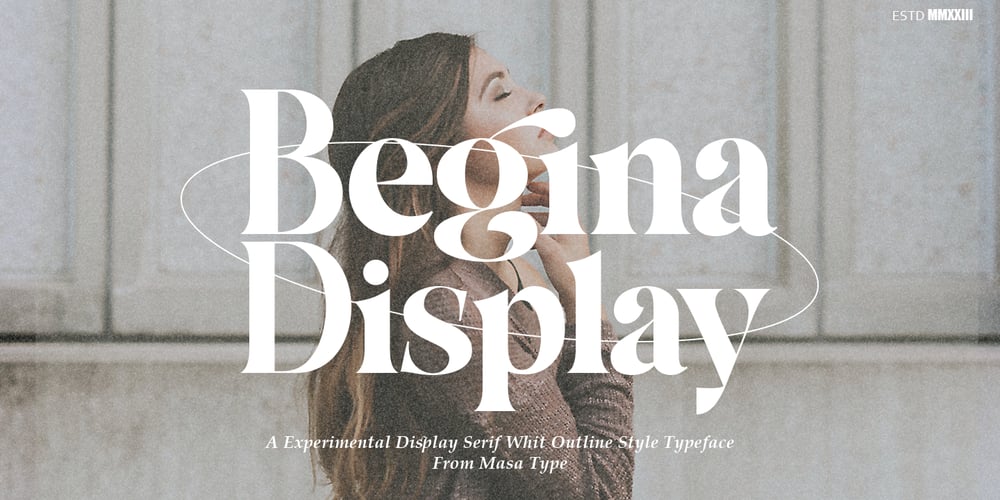
Begina Display
Begina Display font
Begina Display Font Family was designed by Jumm ati and published by Masa Type. Begina Display contains 3 styles and family package options. Begina Display is a modern vintage serif font packaged in a modern and classy style, complete with access to your OpenType features to access a large selection of alternates letters and ligatures, the choice of letters you like from variations of uppercase and lowercase letters to get a display luxurious and elegant.What is included:Begina Display Regular BeginaDisplay Italic Begina Display OutlineFeaturesAll Uppercase and Lowercase Number & Symbol Supported Languages Alternates and Ligatures PUA Encoded If you have any questions, don’t hesitate to contact me.Thank you,